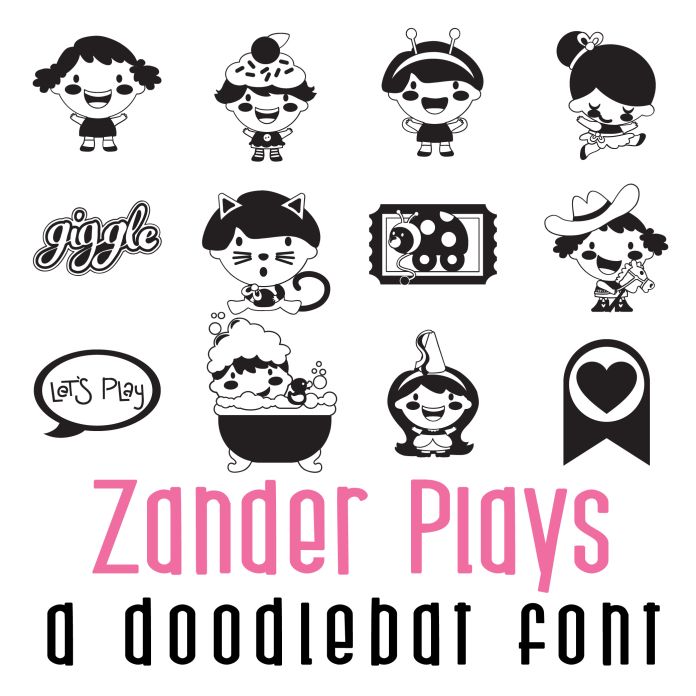
This doodlebat font features 26 adorable girls living their best playful life! Perfect for classrooms, teachers, gifts, decor, scrap book pages, planner stickers and more!